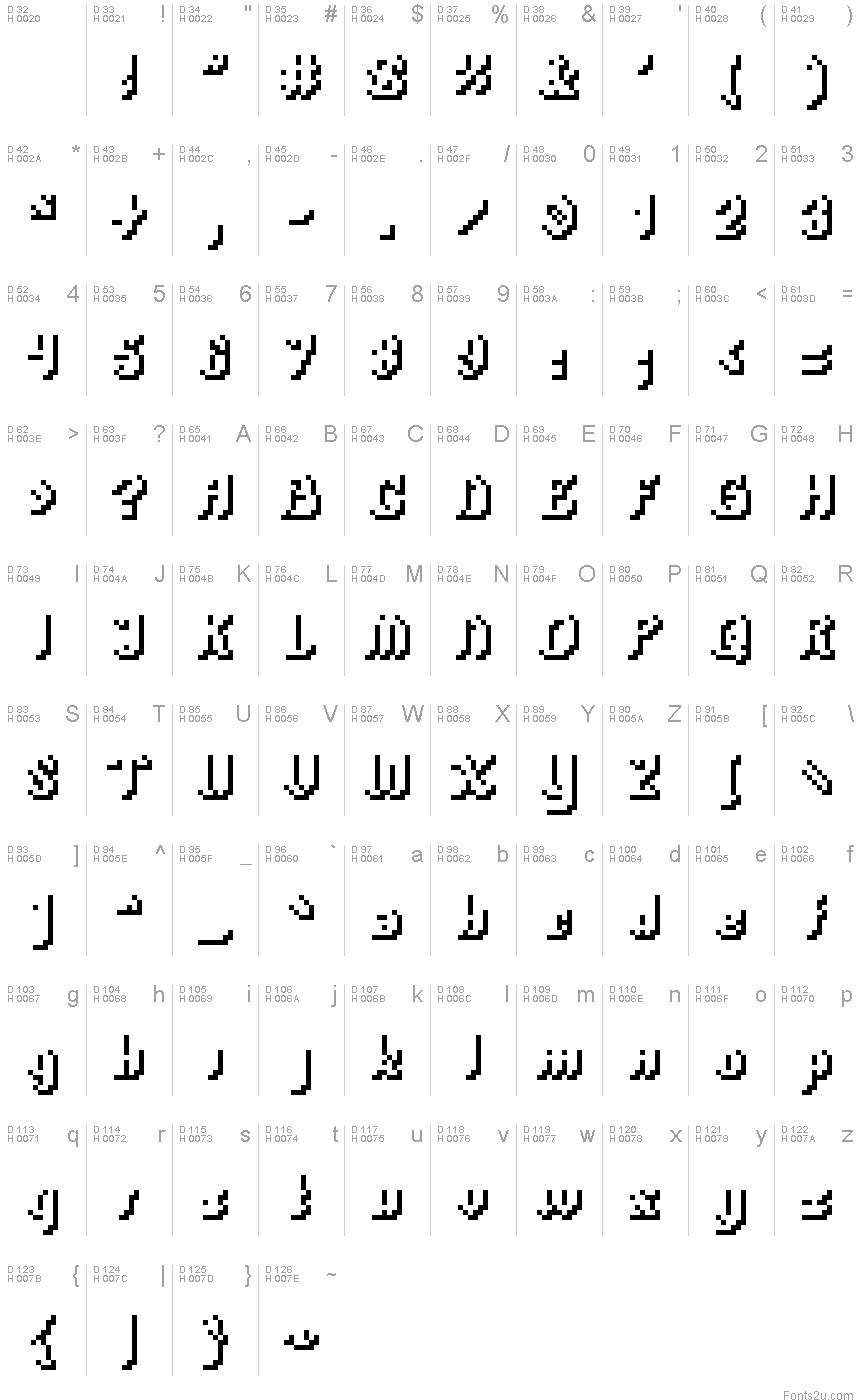
PlopDumpShadow
A font specifically made for use in Adventure Game Studios. Best viewed at 10 pixel size. Alias, outline, and shadow fonts are to be layered over the base font.